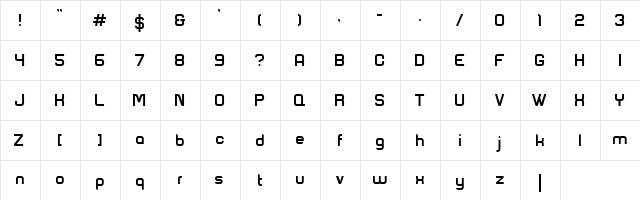
The Shift Regular
| Foundry | Aan kurniawan |
| Designer | Aan kurniawan |
Design Context for The Shift Typeface
The Shift is a composed and adaptable typeface that performs quietly and consistently across a wide range of design contexts.